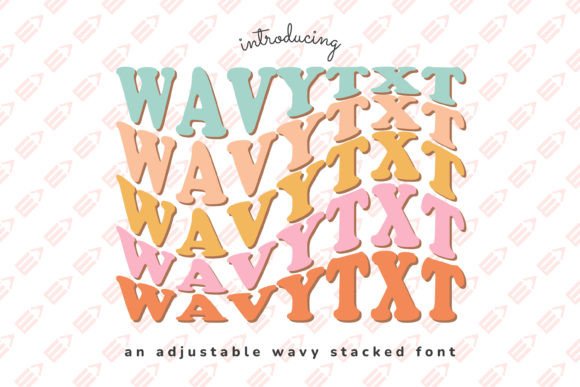
Introducing WavyTxt, the game-changing font that will revolutionize your designs! Created by the talented WADLEN, this display font is perfect for adding a vintage touch to your projects. With its captivating style and innovative features, WavyTxt guarantees to make your text stand out from the crowd.
What sets WavyTxt apart is its unique stacked design, allowing you to effortlessly ride the waves of creativity. With 7 alternate glyphs for each letter, you have endless possibilities to craft mesmerizing wavy text that will captivate your audience. Watch as your words dance and sway, bringing a dynamic dimension to your designs that is simply irresistible.
Whether you're a graphic design enthusiast or a seasoned professional, WavyTxt is a must-have in your font collection. Its playful and eye-catching aesthetic is perfect for a wide range of projects, from logos to posters and everything in between. Let your creativity run wild as you surf through the alphabet, discovering the endless design possibilities this font offers.
But that's not all! WavyTxt is PUA encoded, granting you easy access to a treasure trove of amazing glyphs and ligatures. Unleash your imagination and create stunning combinations that will leave a lasting impression. The power to elevate your designs is at your fingertips.